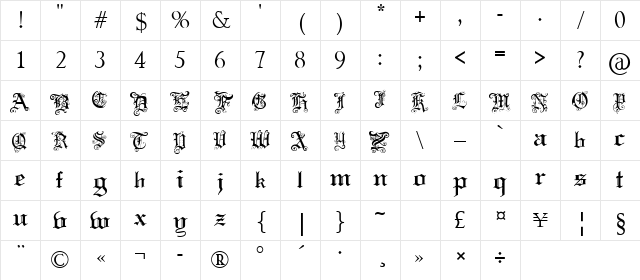
Complete Pauls Swirly Gothic Font Regular glyph index. Displaying only characters natively supported by Pauls Swirly Gothic Font Regular font.
Pauls Swirly Gothic Font is built around its visual character rather than neutral utility - its distinctive forms are designed to make an impression at display sizes.
Font Pairing: Pair with a clean neutral sans-serif for body copy to let Pauls Swirly Gothic Font's character lead without overwhelming the composition.
Pro Tip: Use Pauls Swirly Gothic Font exclusively at display sizes - it was designed to be seen, not read at length. Let a neutral companion handle body copy.